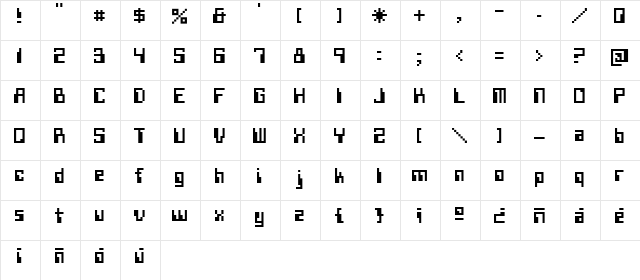
Retro Robot Xpaider Regular
Design Context for Retro Robot Xpaider Typeface
Retro Robot Xpaider has the warm character of retro typography — evoking diners, record sleeves, and the golden age of print advertising.
Font Pairing: Combine Retro Robot Xpaider with a simple slab or neutral sans — period-accurate companions reinforce the vintage feel without competing for attention.
Pro Tip: Lean into Retro Robot Xpaider's period character by pairing it with aged paper textures, muted colour palettes, and vintage illustration styles.